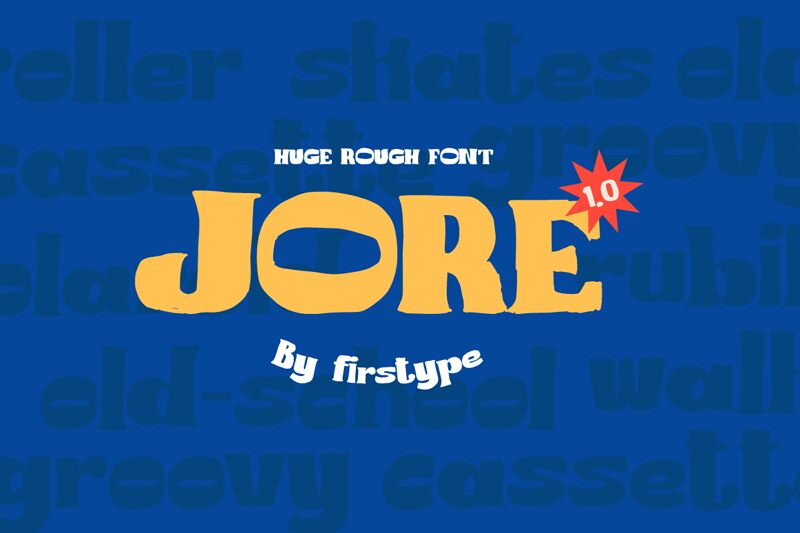
Jore
Jore font by Firstype Studio is a bold display font with an expanded width in its all-caps letterforms. With fashionable letters, organic shapes, and a whimsical nature, it’s a decorative typeface that delivers retro vibes paired with brushed texture effects reminiscent of calligraphy fonts. The outlined style of some letters also adds to the innovation of the design.